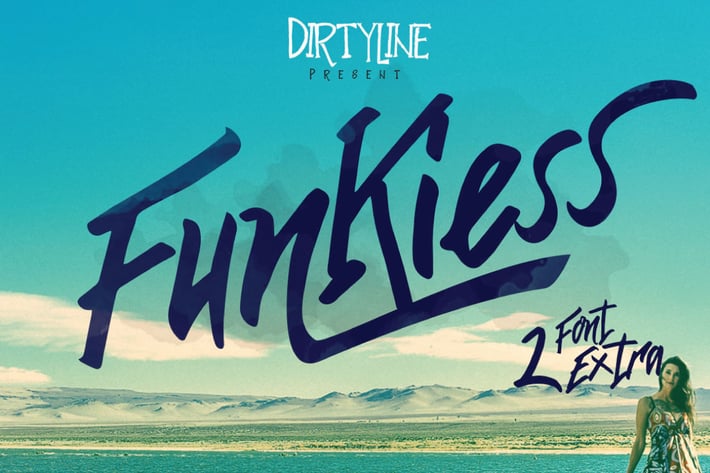
Funkiess Display Font Logotype
Introducing Funkiess handwritten letters and some combination of style Street and Funky. wild hand and imperfect flow give the natural looks.
The Features of this fonts is:
Initial Forms
Terminal Forms
Ligatures
International glyphs